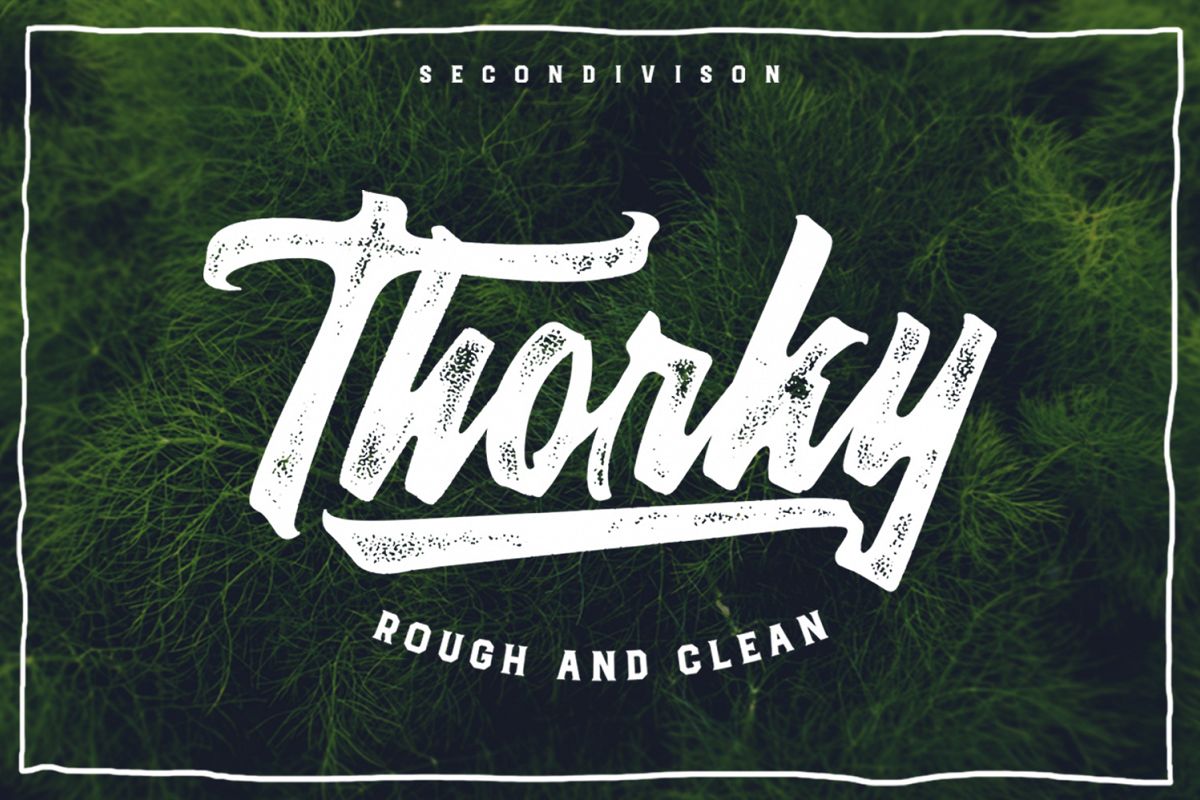
Thorky
Thorky are rough and clean script font. Thorky good for your logo
design, poster design, apparel design, etc. This font have many
alternates characters, so you can combine Thorky regular characters with
Thorky alternates character for your design.
• Character A - Z
• Numeric & Punctuation
• Alternates Character